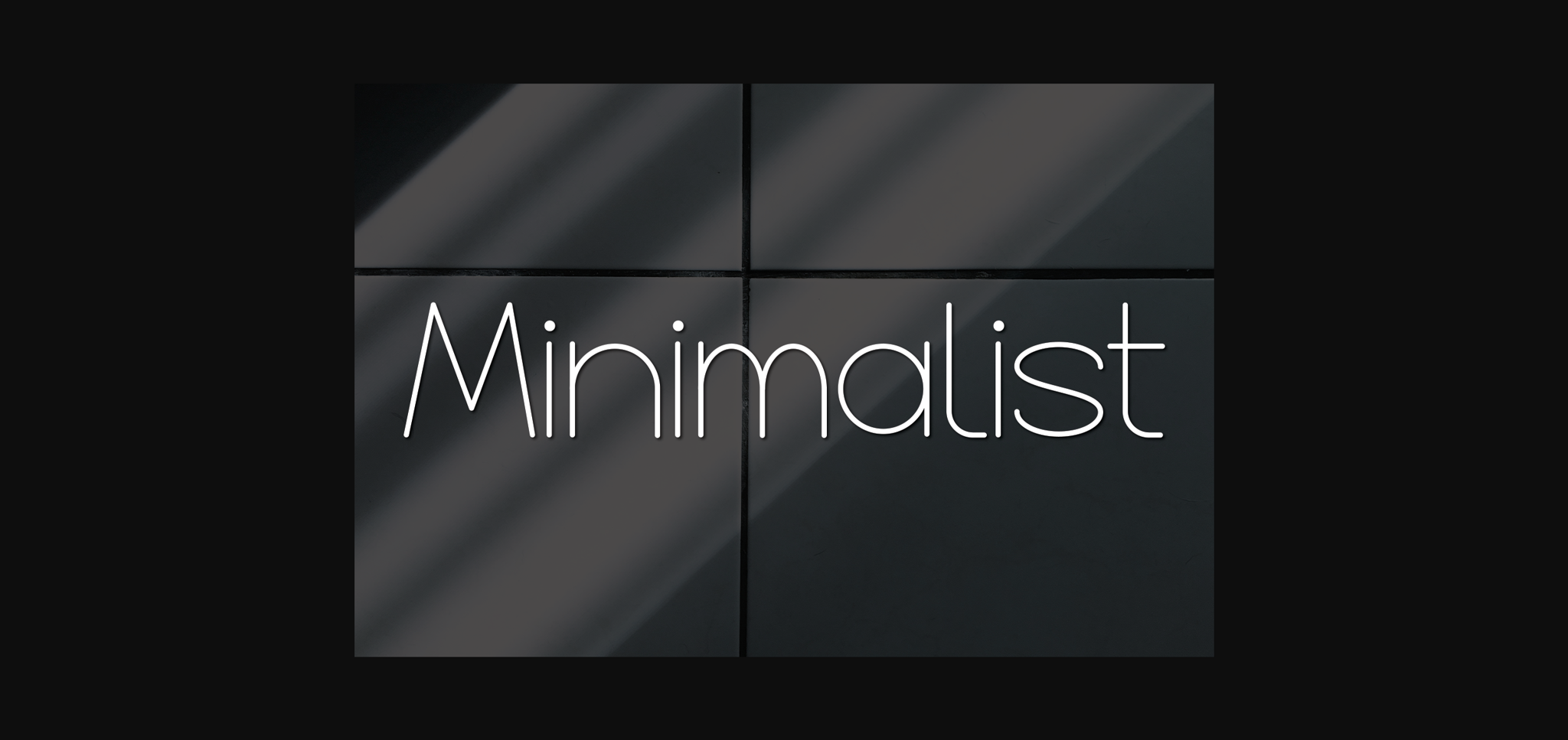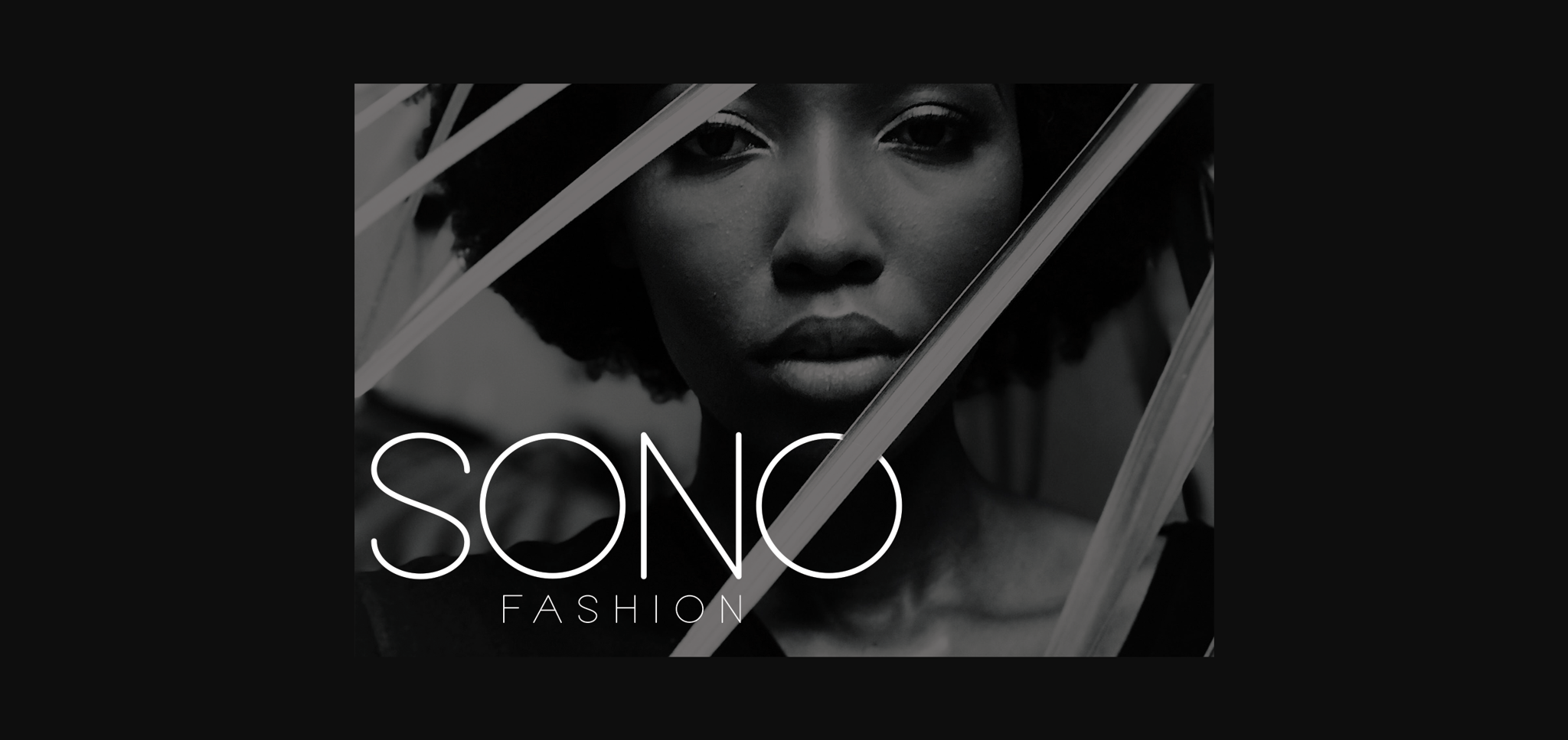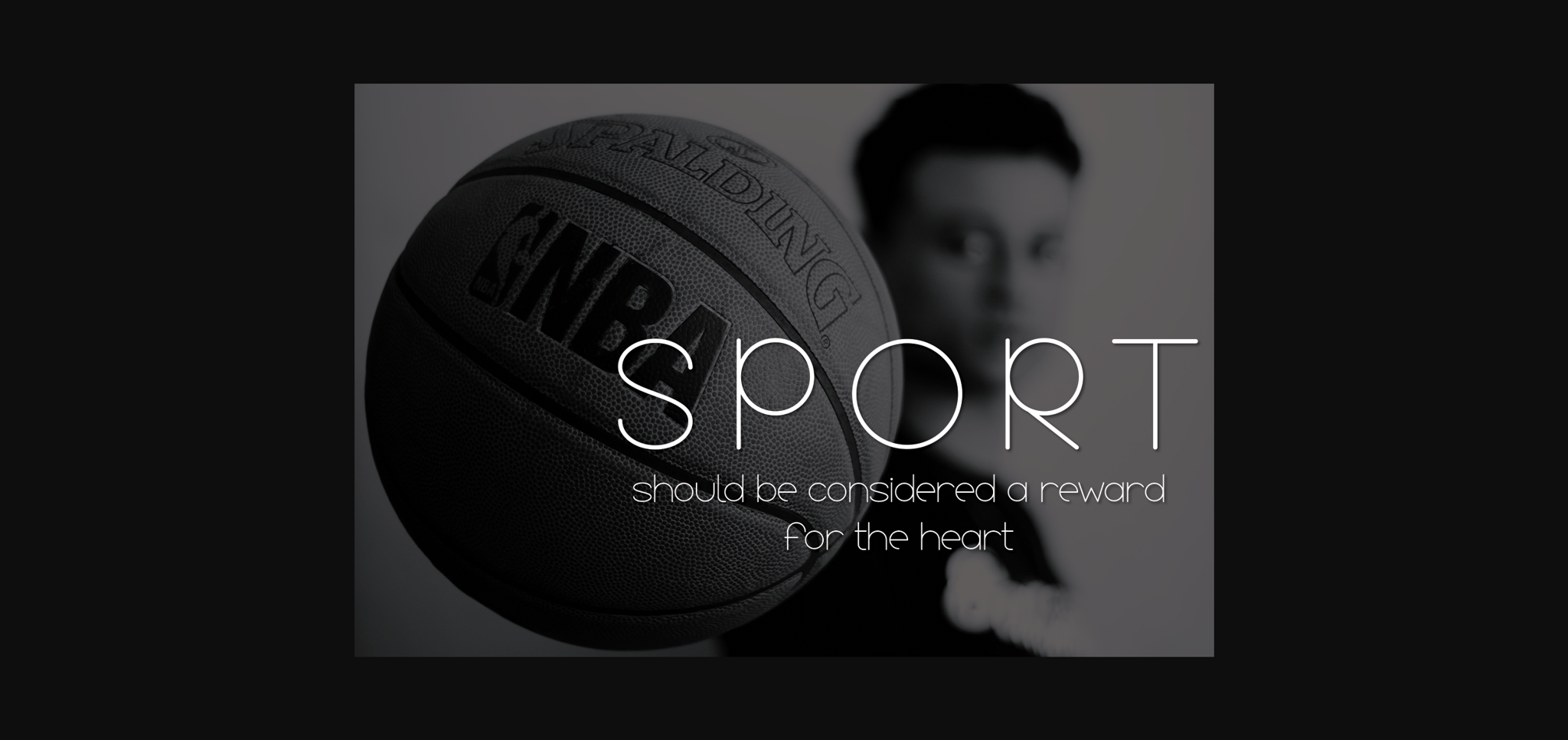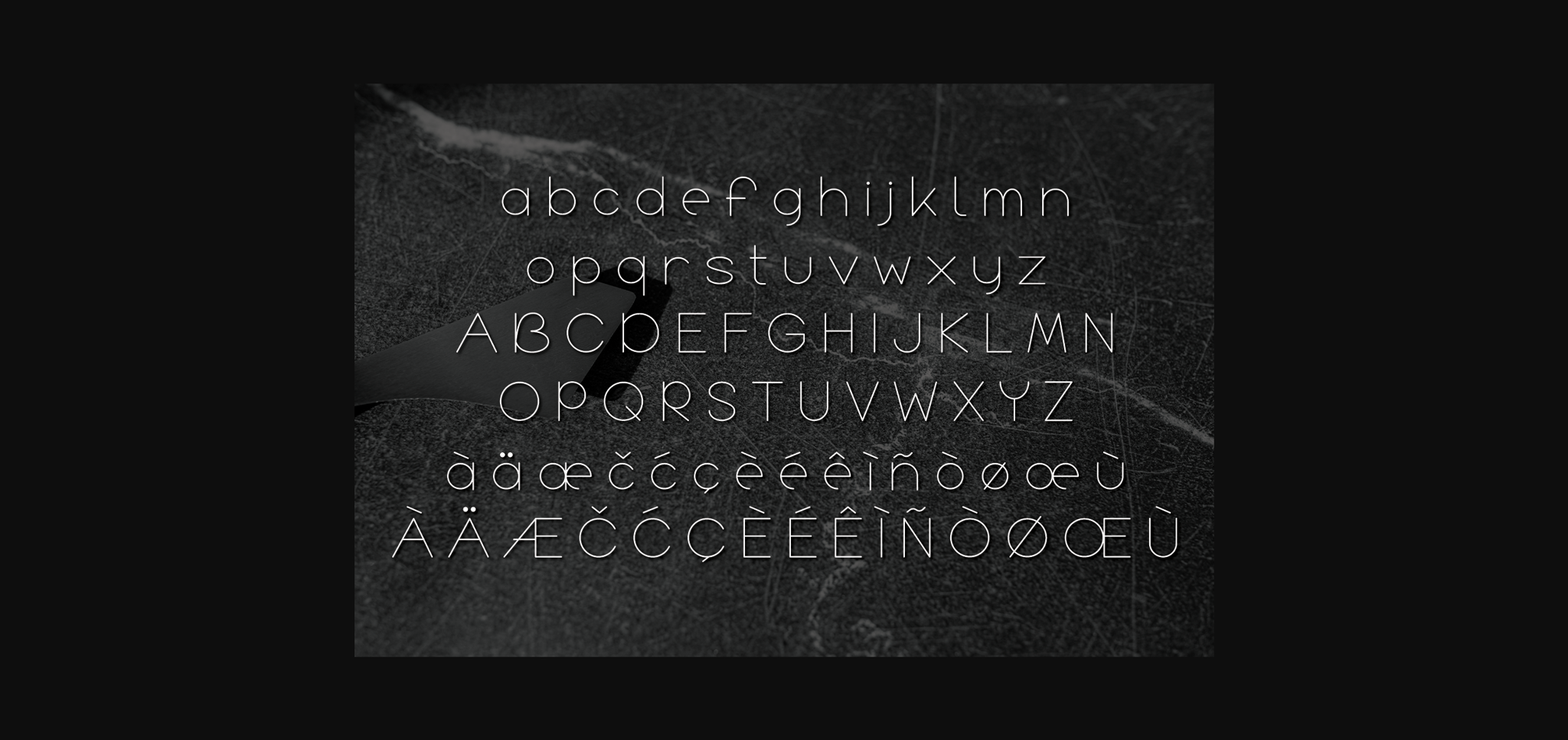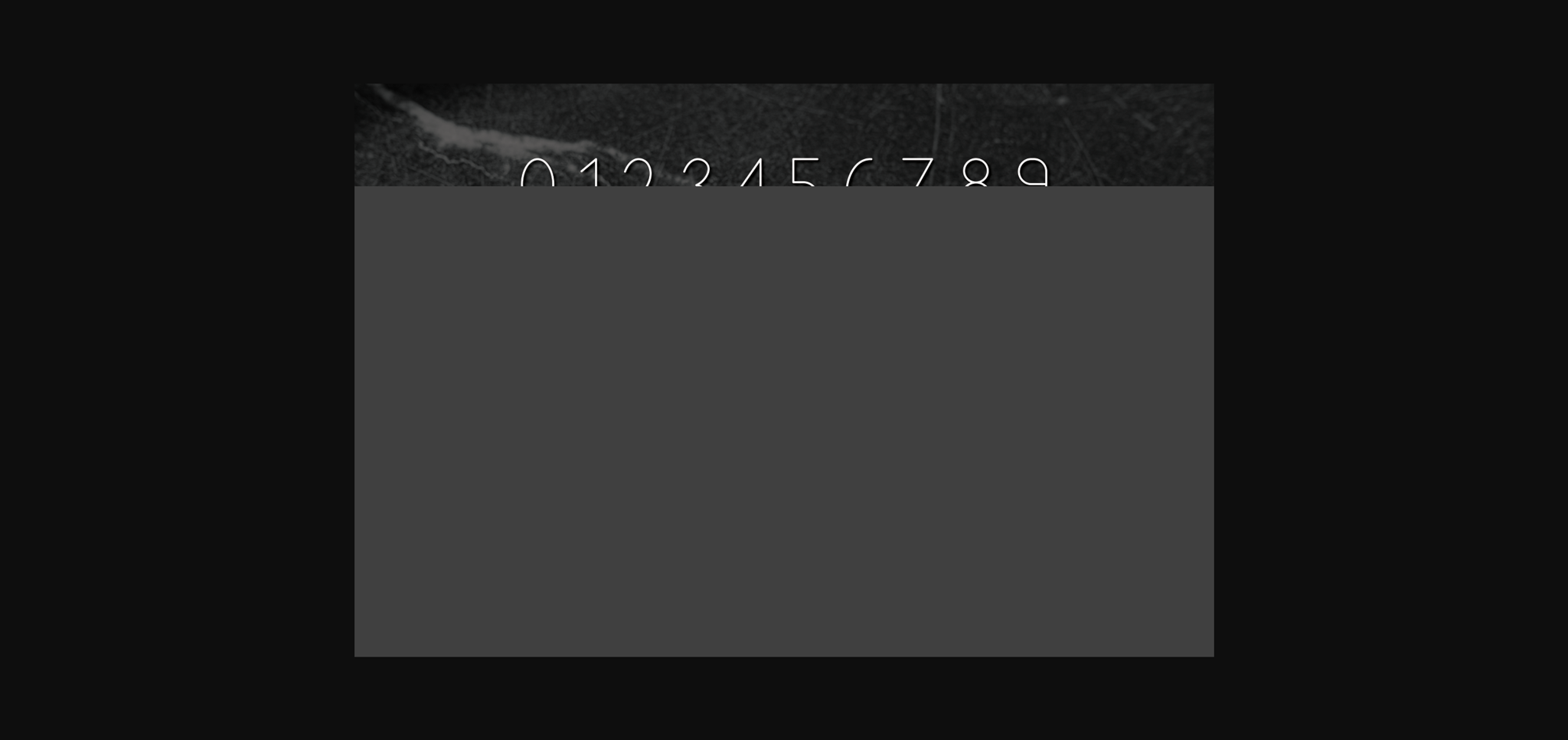
Minimalist Font
About Minimalist Font
Minimalist is a modern sans serif font. This beautiful, fresh font is perfect for advertising, headlines, blogs, logos, branding and more!